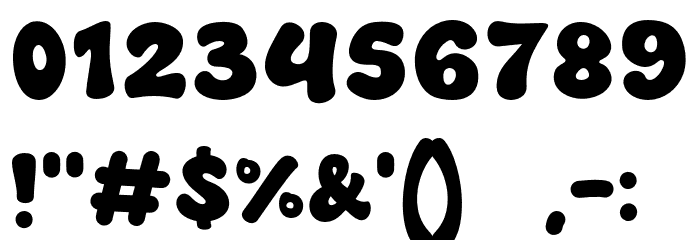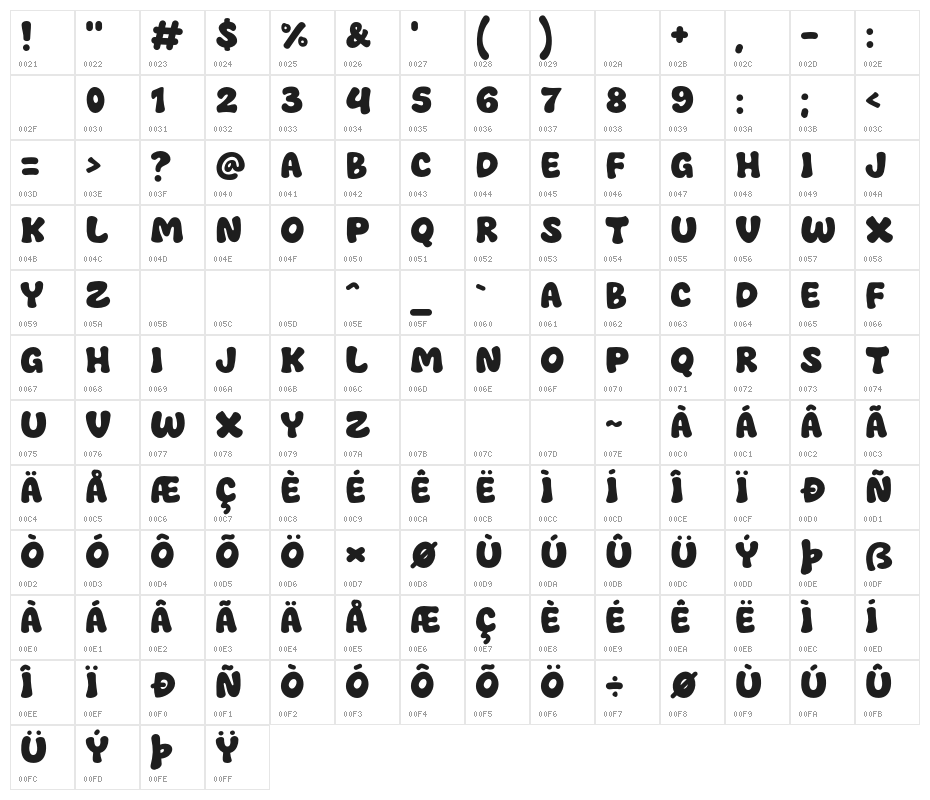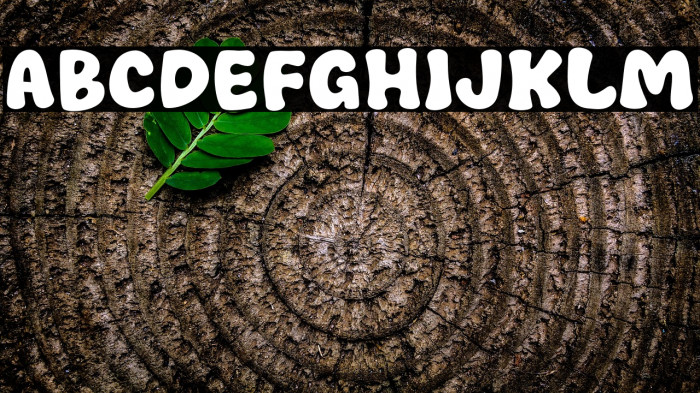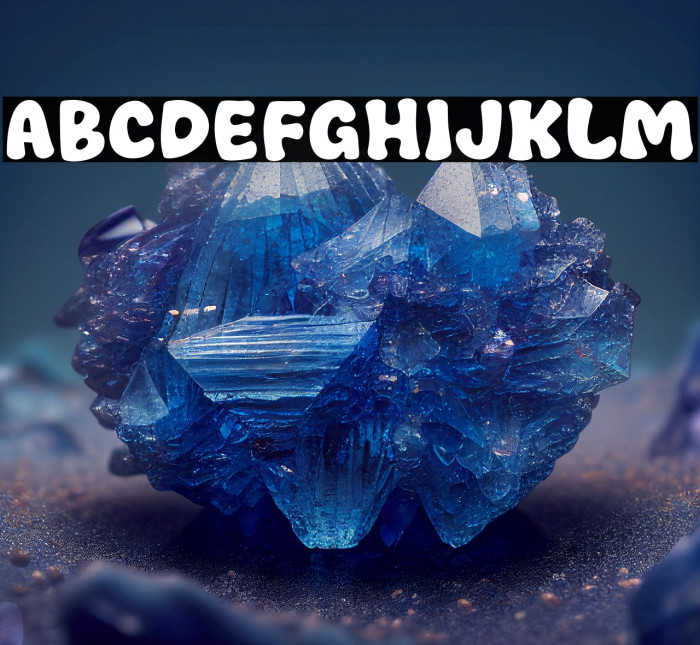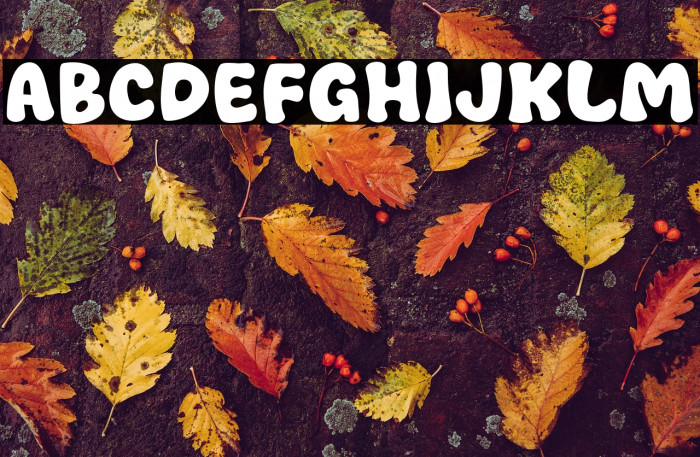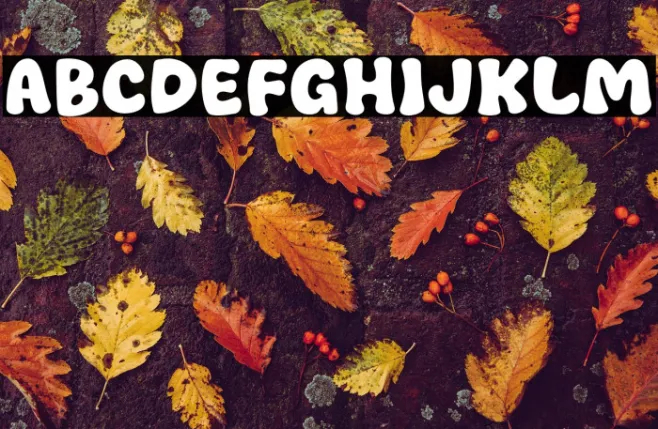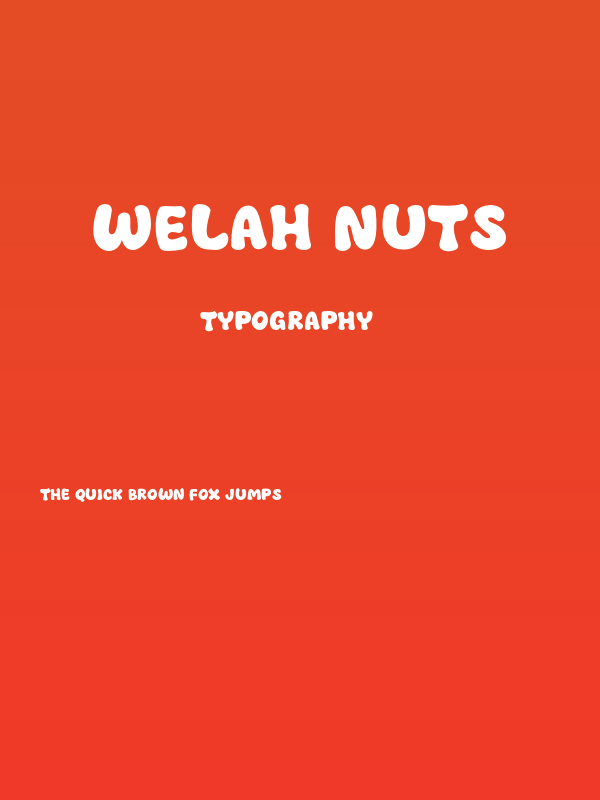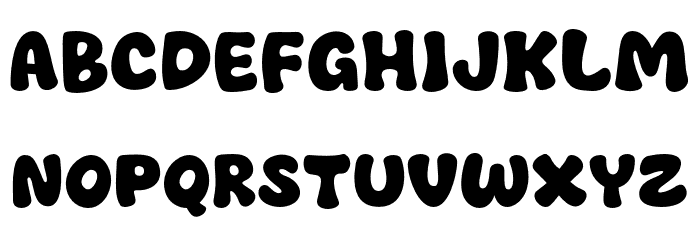
Welah Nuts Font
Welah Nuts Description
This playful and bold font features rounded, bubbly characters that exude a sense of fun and whimsy. The letters are thick and have a consistent stroke width, giving them a strong presence on the page. The overall design is reminiscent of hand-drawn or cartoon styles, making it ideal for projects that require a lighthearted and approachable feel. The font includes a full set of uppercase and lowercase letters, numbers, and a variety of special characters, ensuring versatility in its application. Its unique style makes it stand out, perfect for capturing attention in creative and informal settings.
| Proposed Projects | Children's books, comic strips, playful branding, party invitations, and posters. |